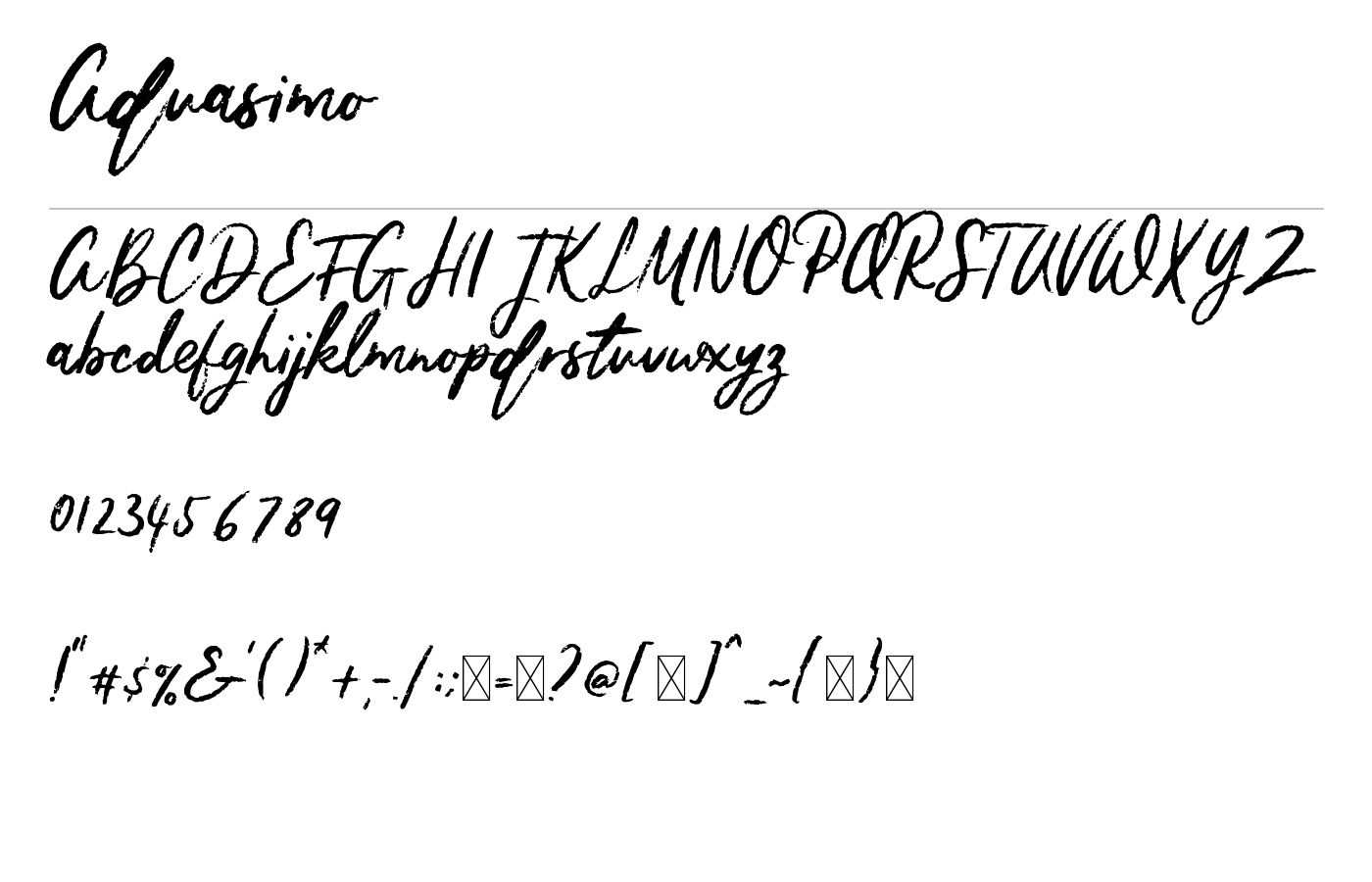
Aquasimo is a lively, handwritten script font characterized by its irregular, textured strokes that mimic brush pen calligraphy. It features a natural, casual style with medium weight and moderate contrast, making it feel personal and expressive, perfect for creative branding, informal invitations, and artistic projects that seek a human touch. The font’s energetic letterforms add warmth and spontaneity, working well for designs that aim to convey friendliness and originality.
Aquasimo Font
About Aquasimo Font
| Font family | Aquasimo Font |
| Designer | Mega Ardelia |